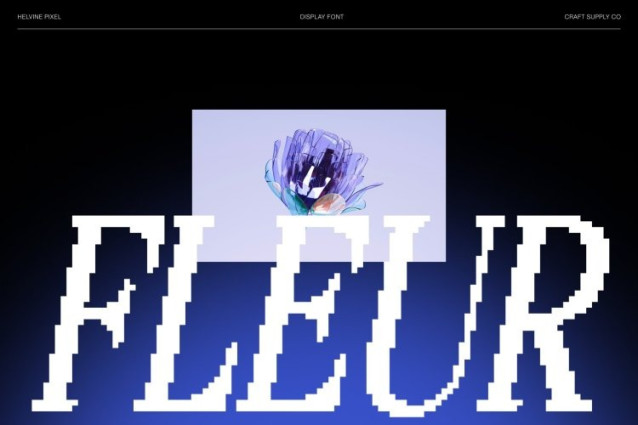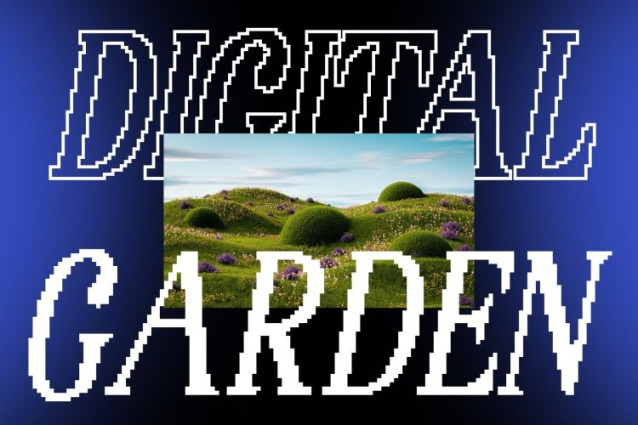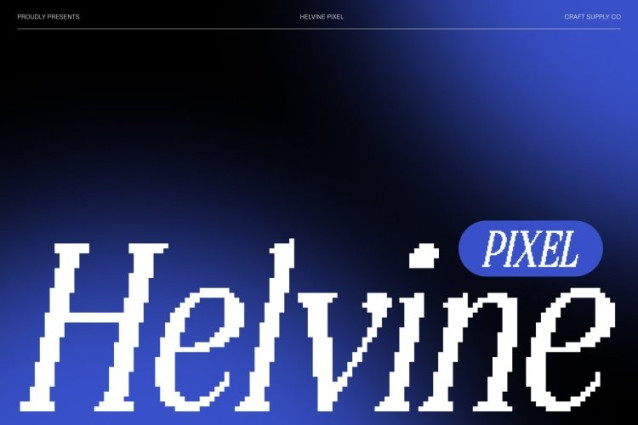
Helvine Pixel Font This condensed retro serif font showcases long, serifs combined with refined contemporary forms, creating a look that radiates elegance and sophistication. Its narrow proportions enhance its stylish presence, making every letter feel sleek, expressive, and visually elongated for a timeless appeal.
Pixel Style for Digital Artistic Personality
The pixelated detailing adds a unique digital twist, enriching the classic serif structure with modern character. This creative combination of retro elegance and pixel artistry produces a distinctive aesthetic that feels both nostalgic and fresh, capturing attention with its textured, digital-inspired charm.
Perfect for Luxury Branding, Posters, and Editorial Layouts
Ideal for upscale branding, retro-modern posters, magazine titles, and stylish editorial compositions, this font brings a perfect balance of sophistication and creativity. Its condensed form allows for impactful headlines in limited space, while the pixel elements add an unforgettable visual identity.
A Blend of Refinement and Pixelated Artistry
By merging graceful serif detailing with pixel-inspired craftsmanship, this typeface delivers a unique fusion of old and new. It stands out as an elegant yet artistic choice for designers seeking to elevate their projects with a refined, modern-retro appeal enriched by digital texture.